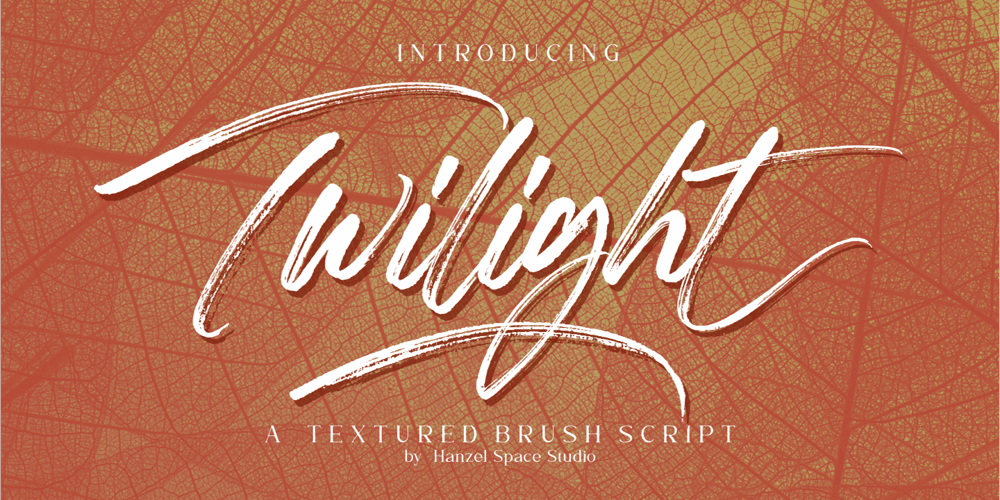
Twilight Brush Font Family was designed by Hanief Farandi and published by Hanzel Space. Twilight Brush contains 1 styles and family package options. We present our new font “Twilight Font” This font was created with a touch of original handwriting using a brush pen. Has a natural and textured feel, and has a distinctive character and is different from other fonts. One more thing that is interesting is that this font is suitable for various kinds of your design needs, namely logos, brochures, posters, quotes, branding and so on.If you are interested in buying this font for your design needs, then you will get 3 types of files that will be installed on your computer.Thanks so much for checking out my shop!Happy creating!Cheers!Hanief – Hanzel Space